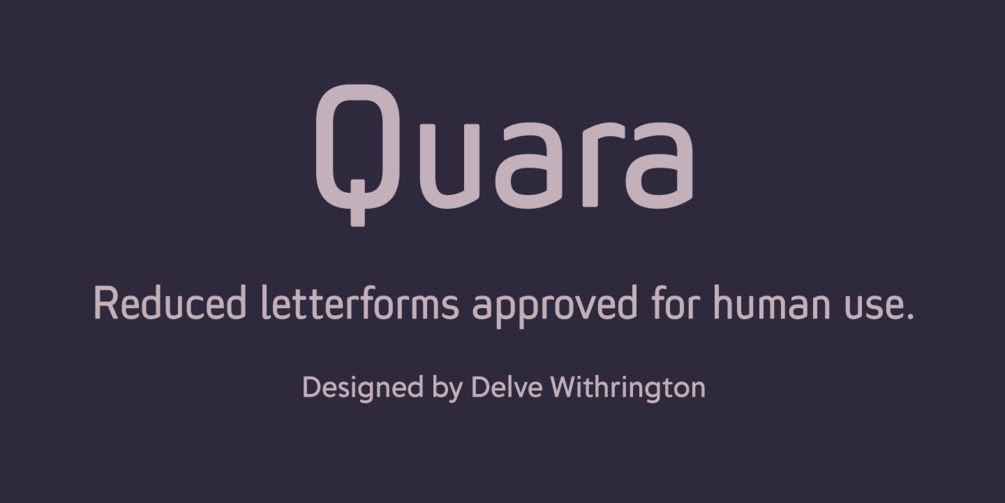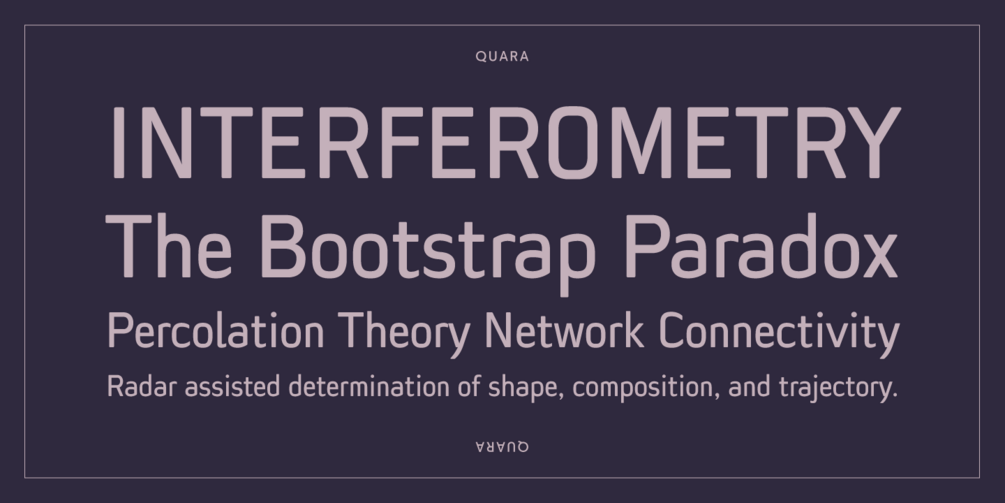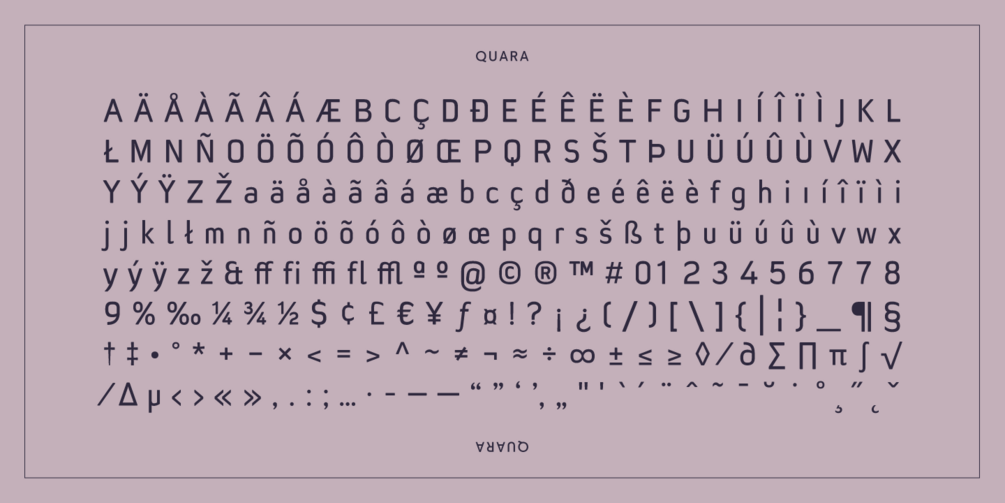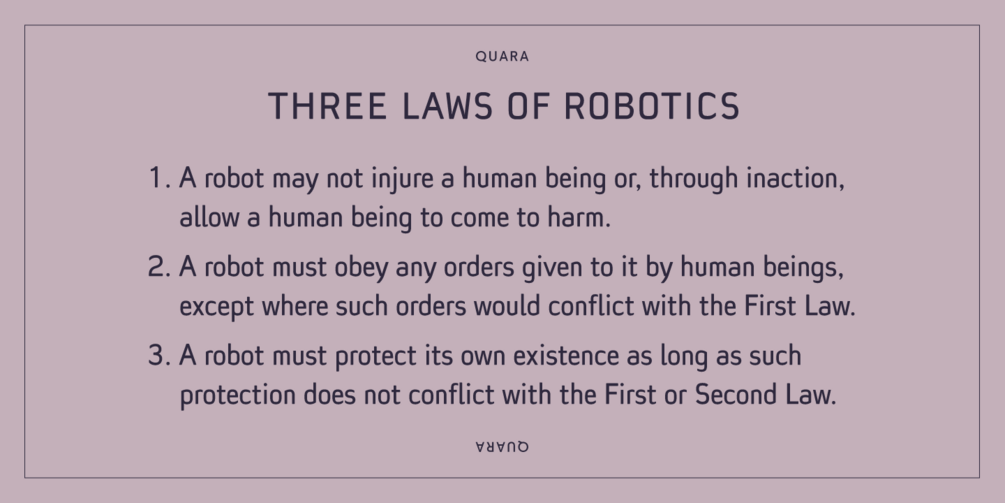
Designed by Delve Withrington in 2009, Quara is a typeface that takes its cues from cutting edge technology and new gadget lust. Quara enjoys short downloads on the web, long walks on mobile devices, and romantic dinners by OLED light. An avid gamer (esp. MMORPG) and science fiction fan, Quara longs to traverse interstellar space and have its pixels scattered among the stars.
The compact, square-ish architecture, low contrast, and slight rounding of corners sets Quara apart from other sans serifs. It is scaleable in the sense that it can be used at larger sizes for titles and headlines, in layouts for magazines, pamphlets, posters, and postcards. And while it is distinctive enough to serve in display settings it maintains a versatility that allows it to perform well at intermediate and text sizes in shorter passages of copy.